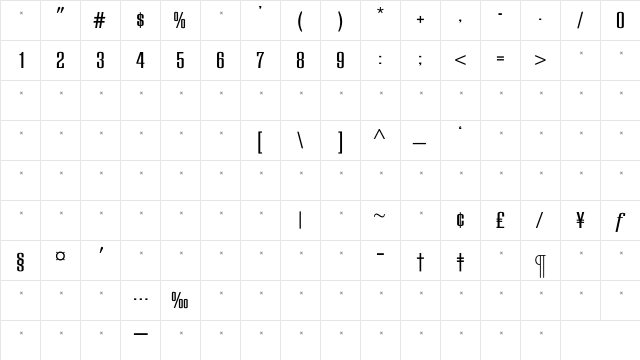
EuropaGrotesqueMediumTab Regular Free Font
EuropaGrotesqueMediumTab Regular
Design Context for EuropaGrotesqueMediumTab
EuropaGrotesqueMediumTab is a composed and adaptable typeface that performs quietly and consistently across a wide range of design contexts.
Pro Tip: Use EuropaGrotesqueMediumTab in both headline and body roles to test its range before committing to a single application.